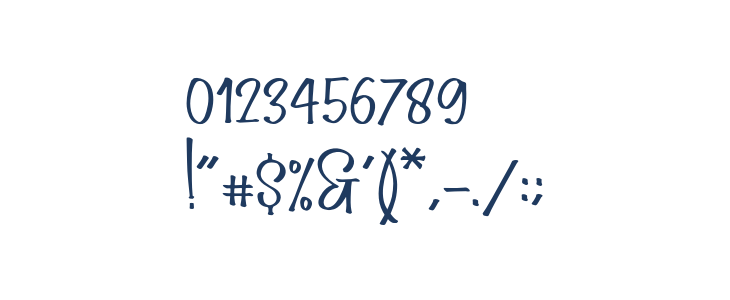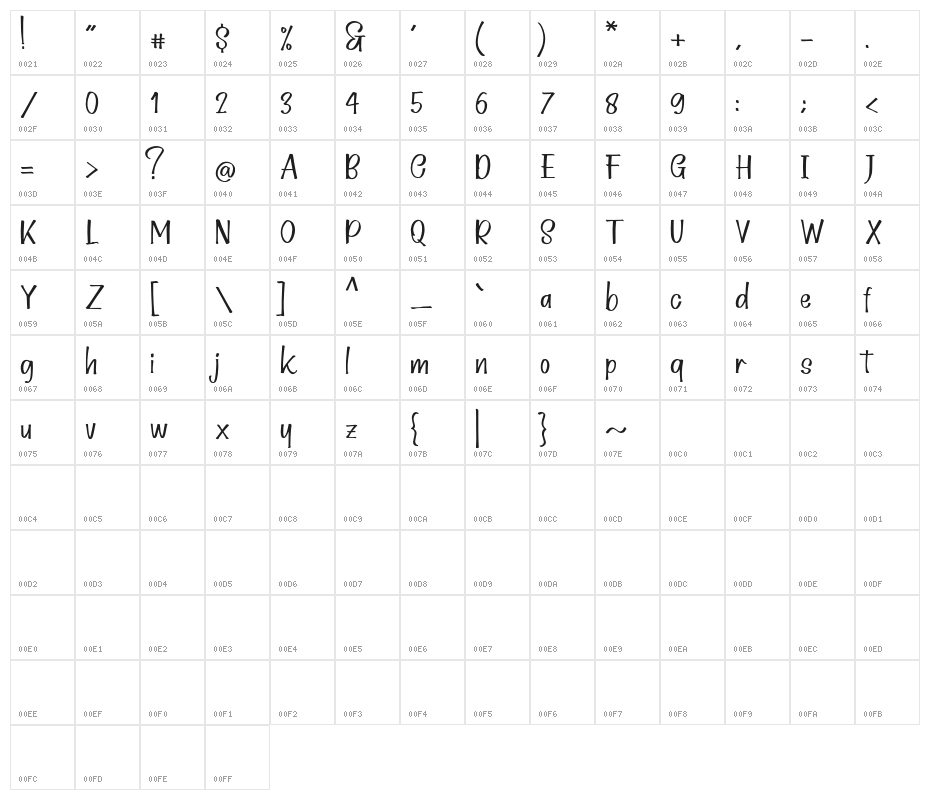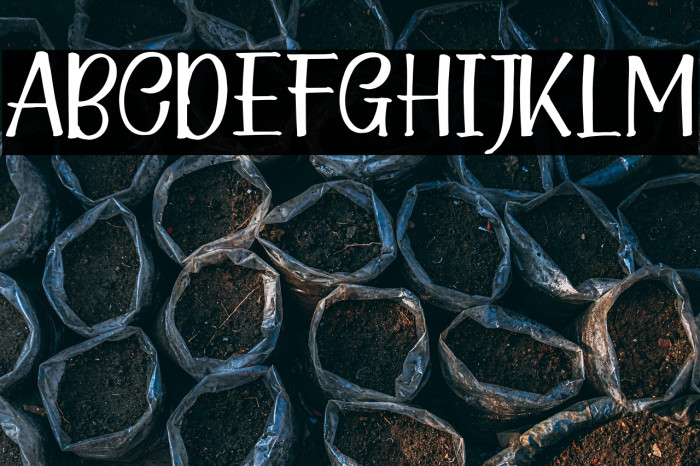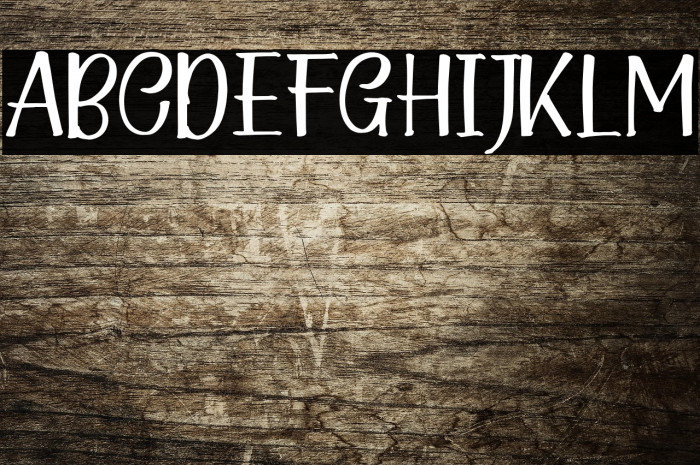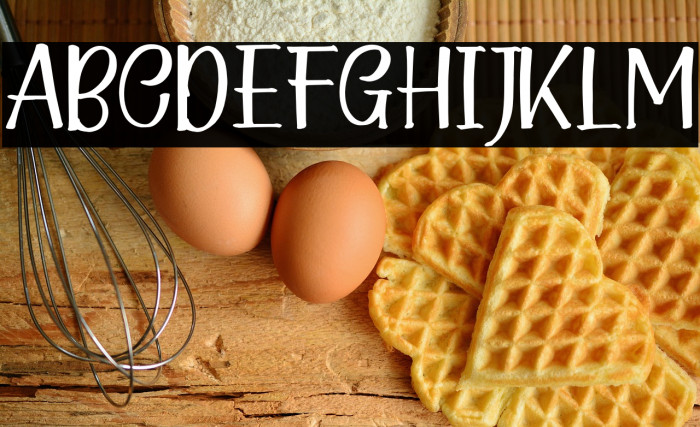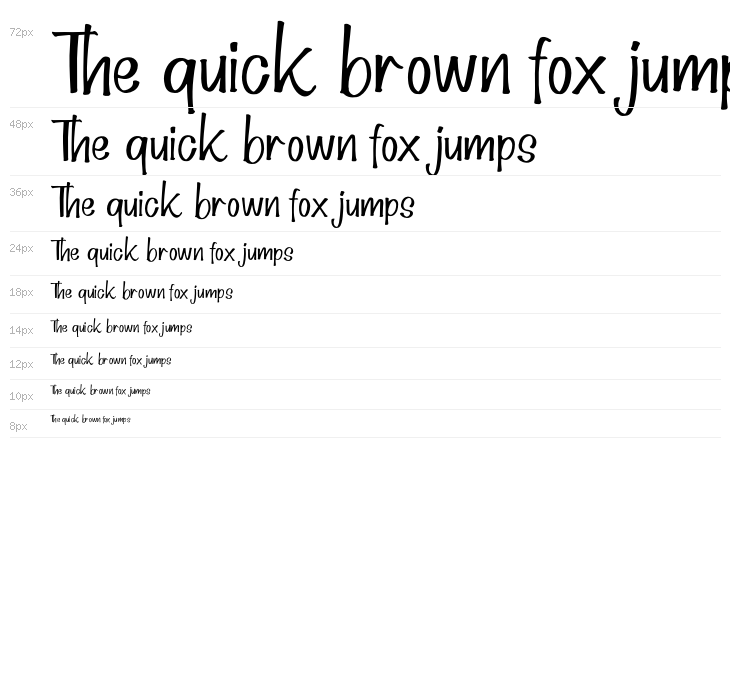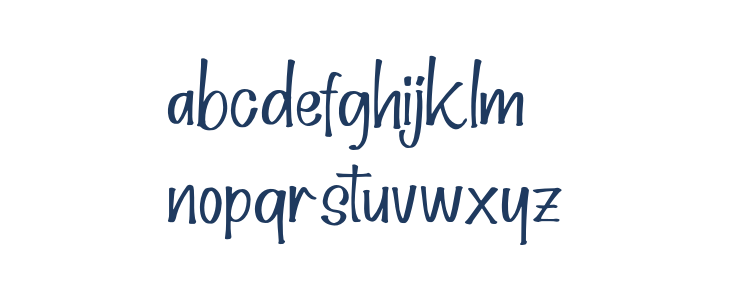
Chibiux Font
Chibiux Description
This font features a playful and whimsical design, characterized by its hand-drawn appearance. The letters are slightly irregular, giving them a charming and informal feel. The uppercase characters are bold and prominent, while the lowercase letters maintain a consistent style with a touch of flair. The numbers are clear and legible, matching the overall aesthetic of the font. Special characters are creatively designed, adding to the font's unique personality. This font is ideal for projects that require a fun and lively touch.
| Overall Style | Playful |
| Proposed Projects | Perfect for children's books, greeting cards, playful branding, and creative posters. |